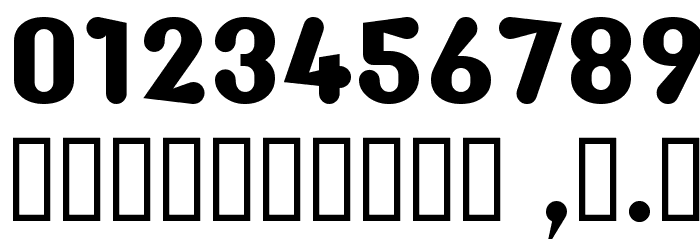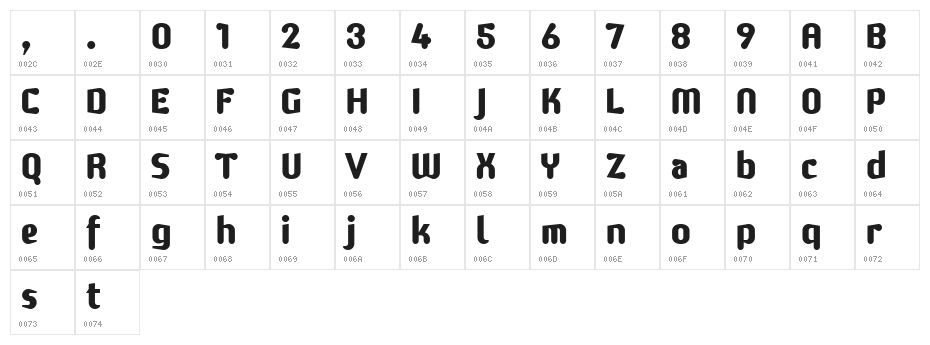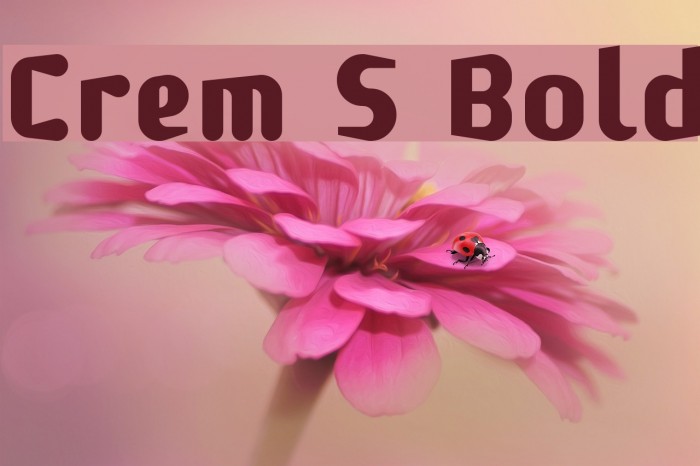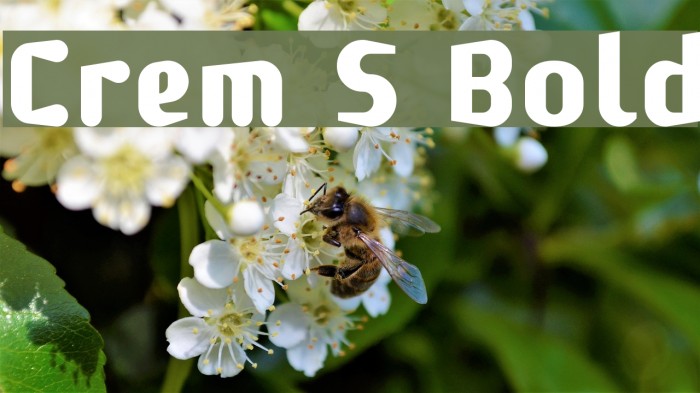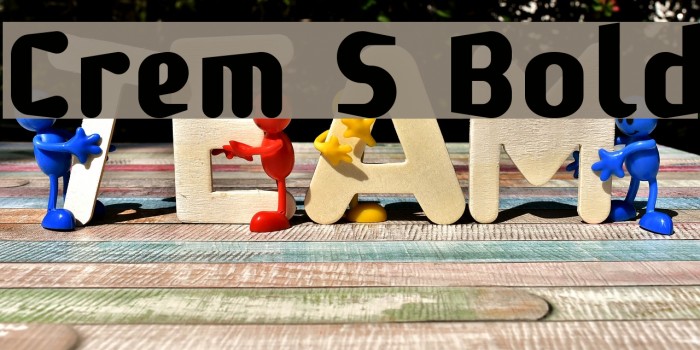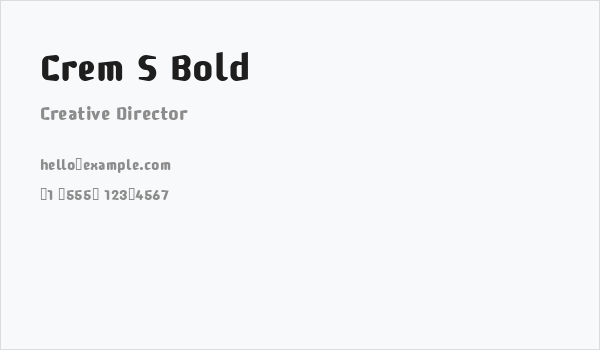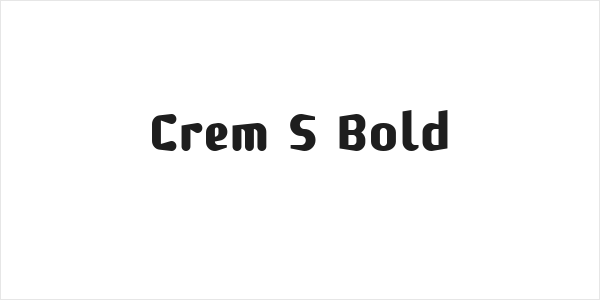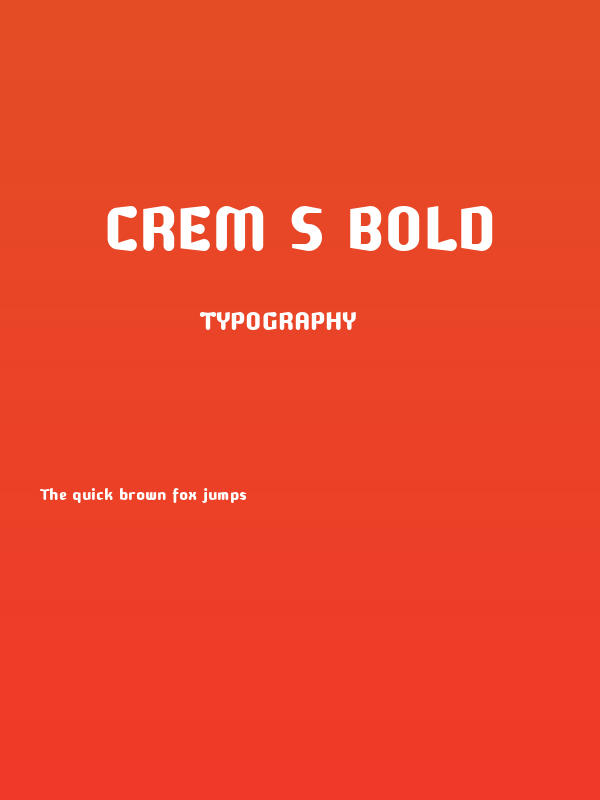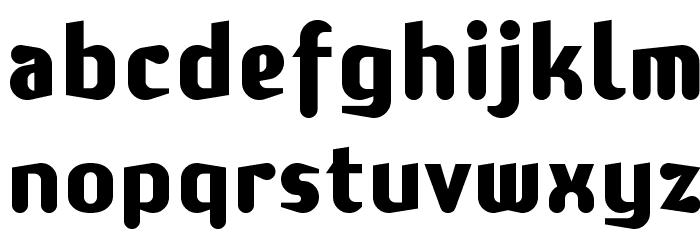
Crem S Bold Font
Crem S Bold Description
This font features a bold and rounded style with a playful yet robust appearance. The characters are thick and have a slightly condensed form, giving them a strong presence. The rounded edges soften the overall look, making it approachable and friendly. The uppercase and lowercase letters maintain a consistent weight, ensuring readability across different sizes. The numerals are clear and distinct, matching the style of the alphabet. Special characters are included, maintaining the same bold and rounded characteristics. This font is versatile, suitable for various design needs that require a bold statement.
| Proposed Projects | Ideal for branding, headlines, posters, and any design project that requires a strong and friendly typeface. |